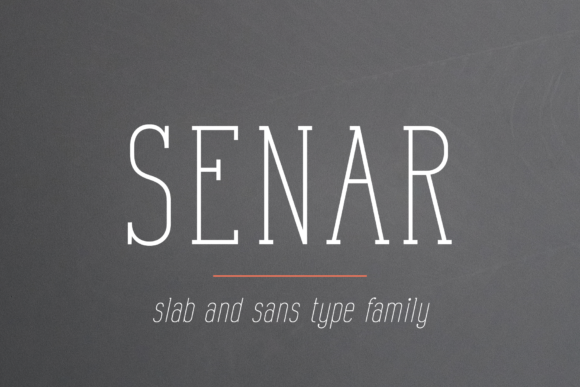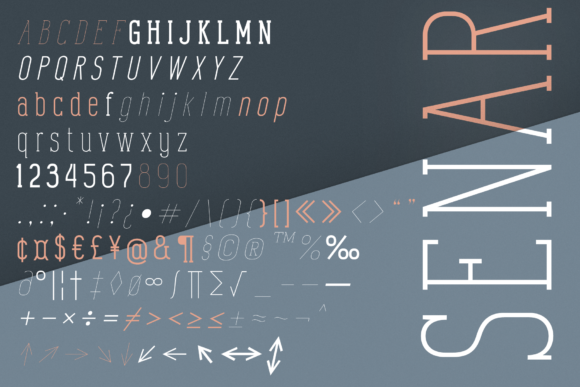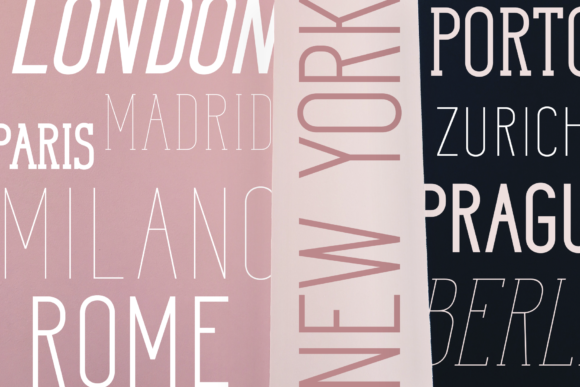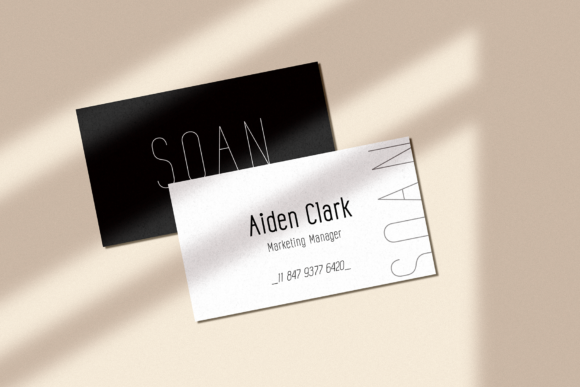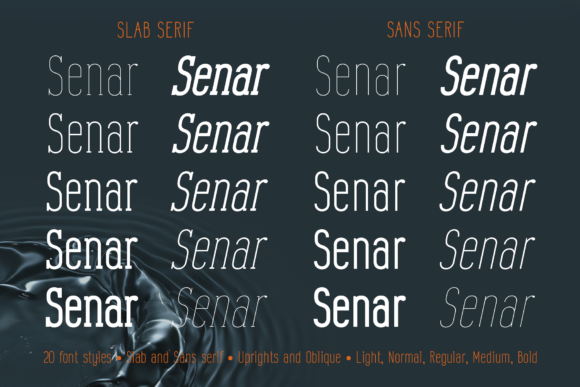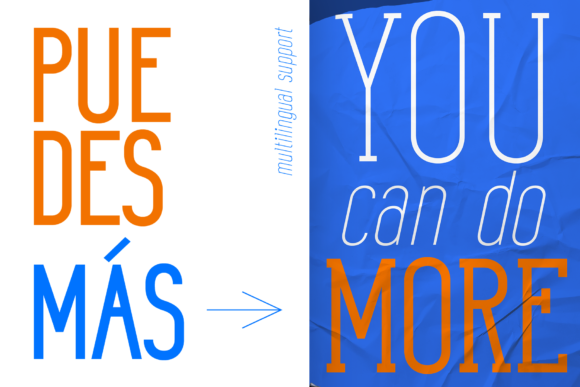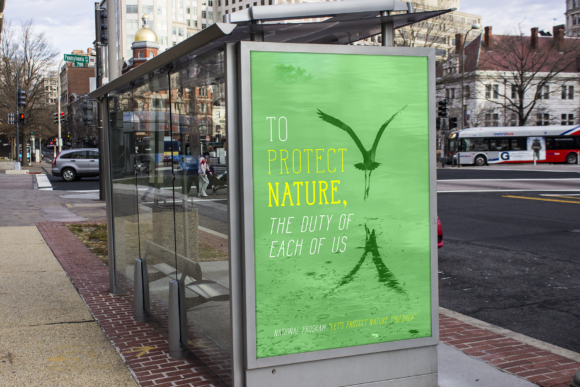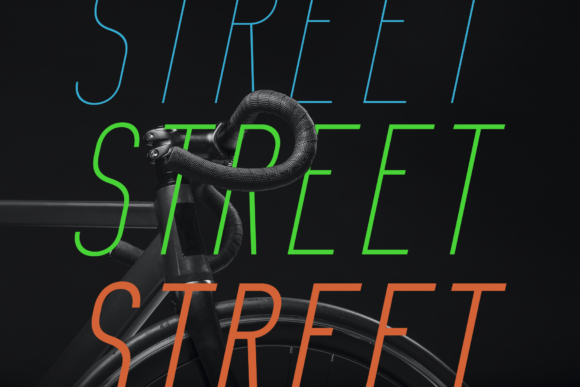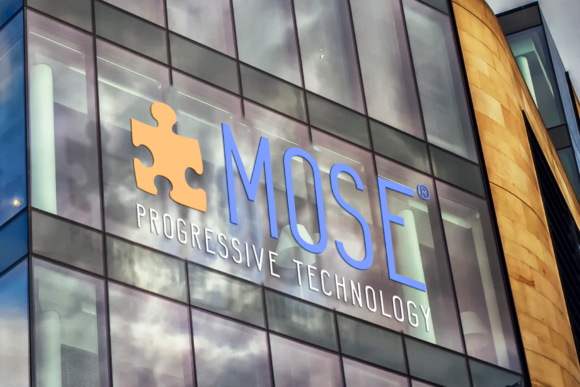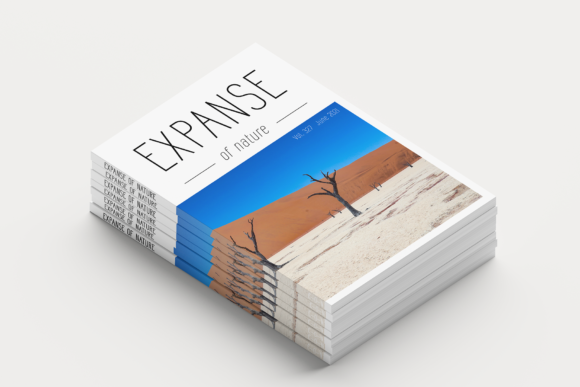
Senar
Senar: A Thin and Tall Slab Serif Font
Senar is a beautifully crafted slab serif font characterized by its thin and tall design. This elegant typeface can easily be matched to an incredibly large set of projects, making it a versatile addition to your creative toolkit.
Key Features of Senar
• Thin Lettering: Features slender characters that enhance readability while maintaining a stylish appearance.
• Tall Structure: The vertical emphasis adds a sense of sophistication and modernity.
• Slab Serif Design: Incorporates thick, rectangular serifs typical of slab serif fonts, providing a bold contrast to its thin strokes.
• Versatile Application: Suitable for a wide range of projects, from print to digital media.
• Stand-Out Quality: Designed to elevate your creative ideas and make them visually striking.
Ideal Uses for Senar
Senar’s unique characteristics make it particularly well-suited for:
• Headlines and titles that need to grab attention.
• Branding and logo design that requires a modern identity.
• Editorial layouts for magazines and newspapers.
• Website headers and digital content aimed at creating an impact.
• Promotional materials that benefit from clean and stylish typography.
When incorporating Senar into your designs, consider the following tips:
• Use for both large headlines and smaller text blocks to showcase its versatility.
• Experiment with different sizes to highlight the font’s elegant details.
• Pair with complementary fonts to create contrast and visual interest.
• Take advantage of its tall structure in projects where you want to convey sophistication and modernity.
Senar is an excellent choice for designers looking to add a thin and tall slab serif font to their typographic toolkit. Its ability to enhance various design projects makes it stand out in the world of typography. Whether you’re working on branding, creating layouts for print media, or developing marketing materials, Senar offers the perfect blend of elegance and functionality.
Add Senar to your creative projects and explore how it can elevate your designs with its stylish and modern aesthetic. From striking headlines to impactful branding elements, this font provides the tools to create memorable typography that resonates with audiences.